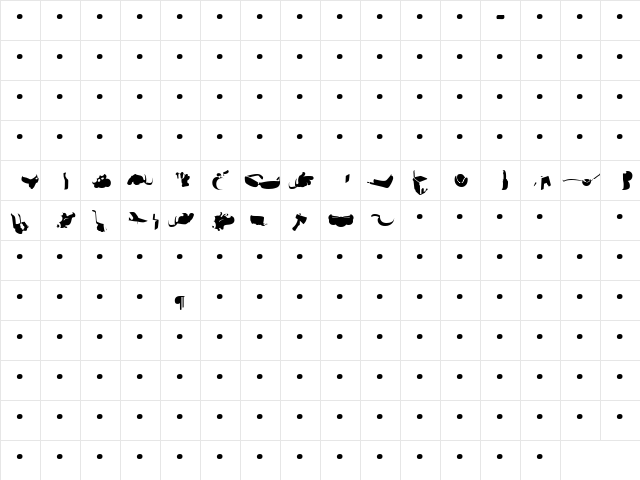
Complete SaunaDingbats-Dimlght Regular glyph index. Displaying only characters natively supported by SaunaDingbats-Dimlght Regular font.
SaunaDingbats-Dimlght is a composed and adaptable typeface that performs quietly and consistently across a wide range of design contexts.
Pro Tip: Use SaunaDingbats-Dimlght in both headline and body roles to test its range before committing to a single application.